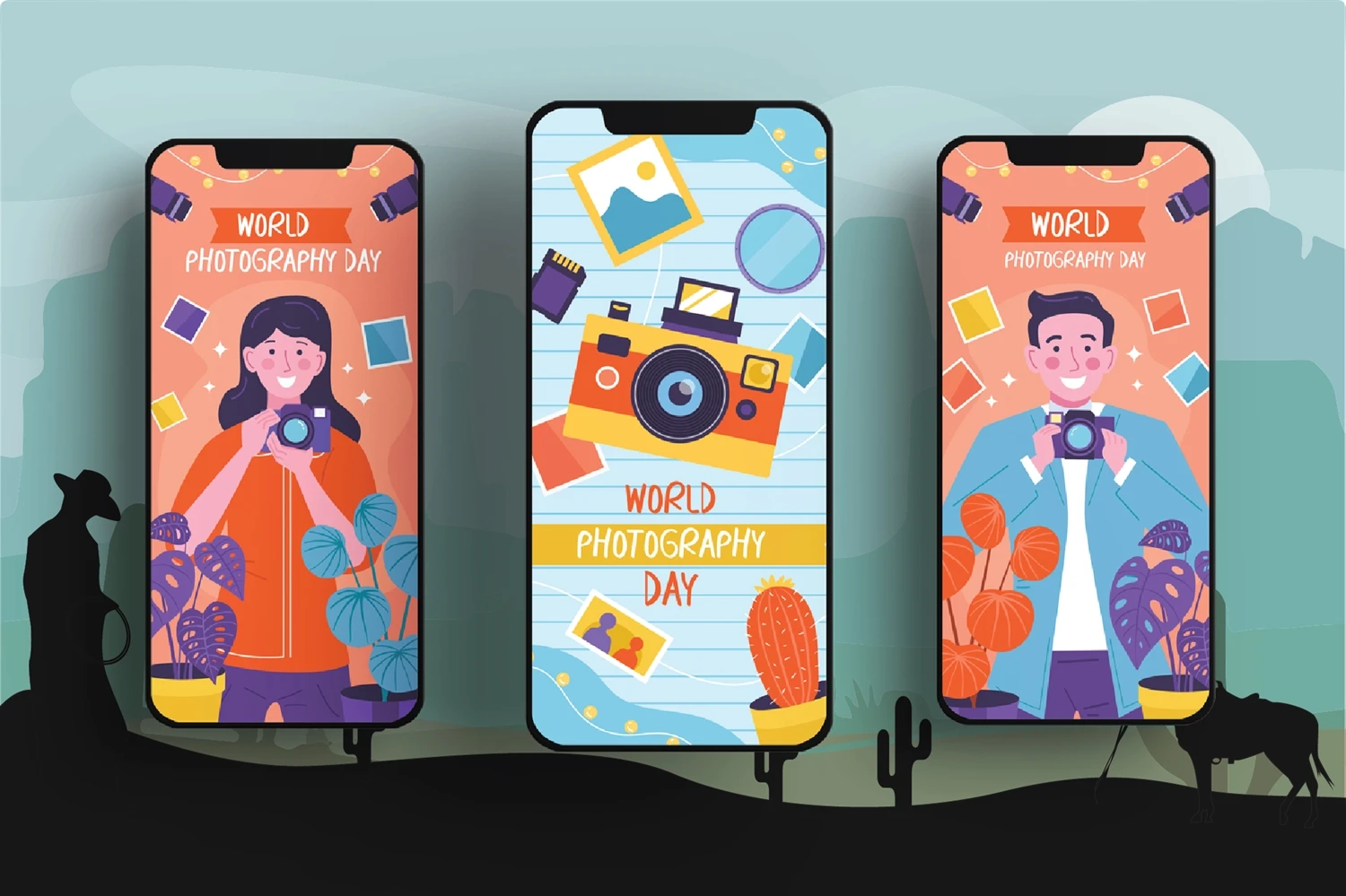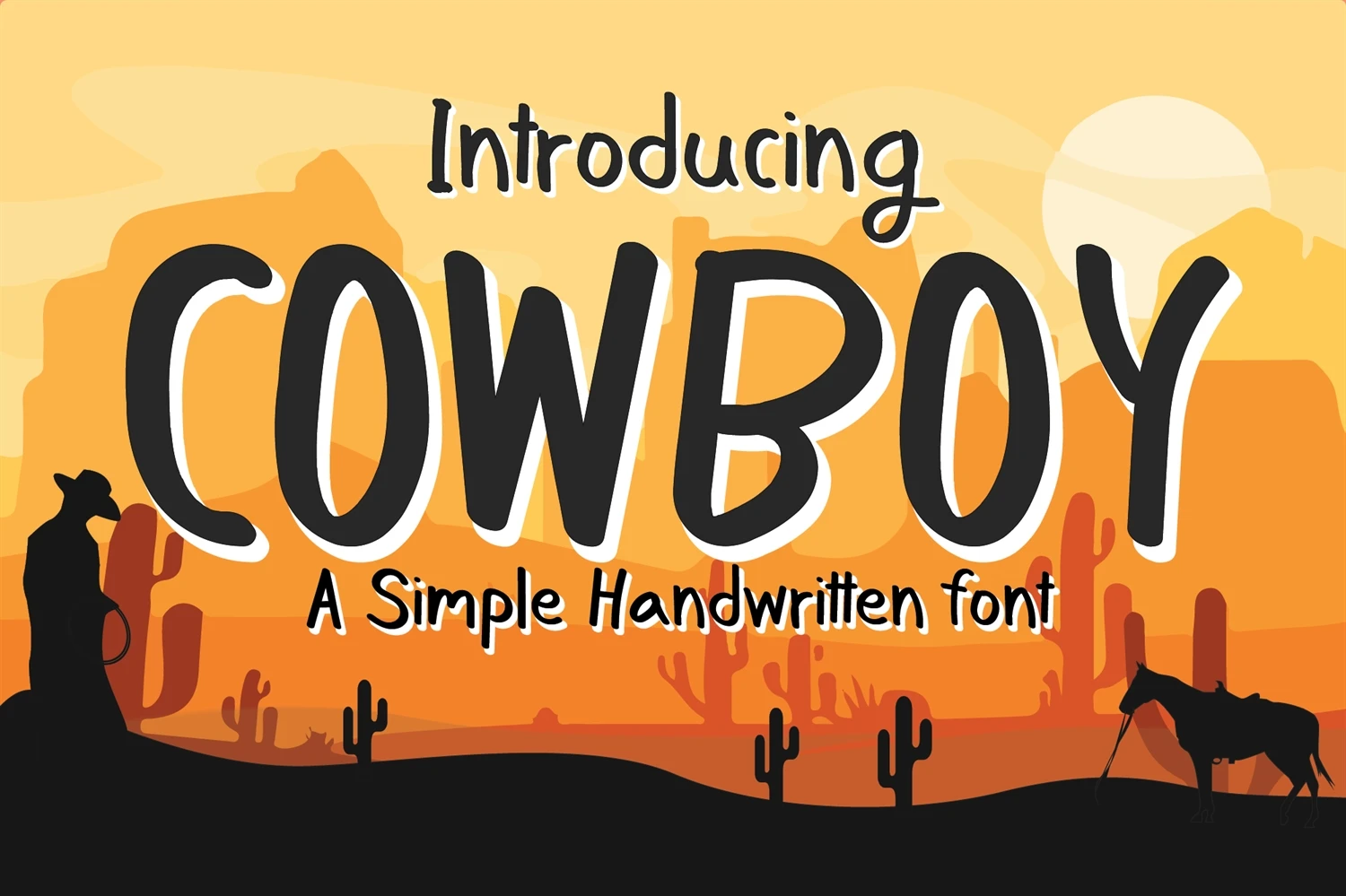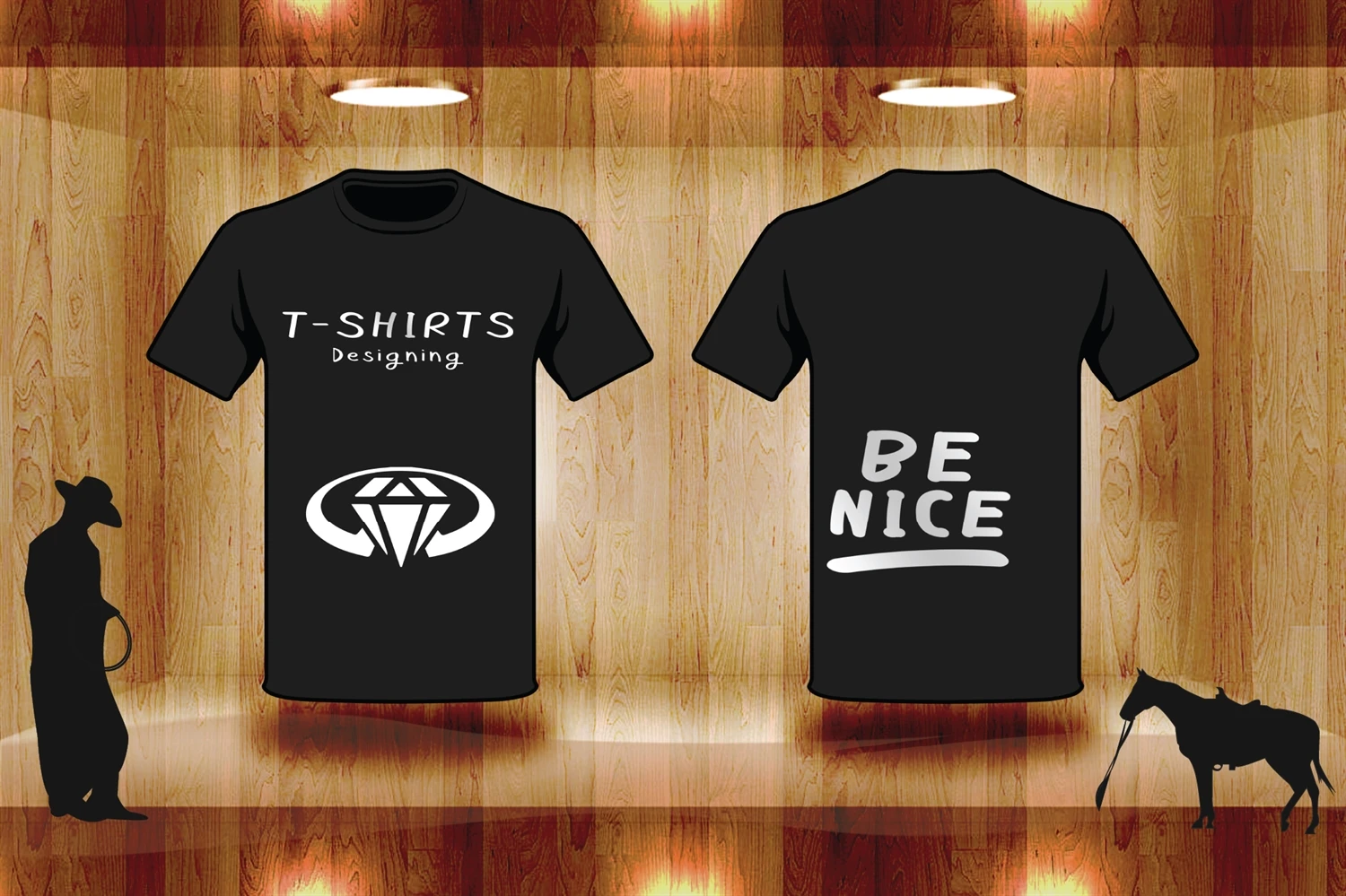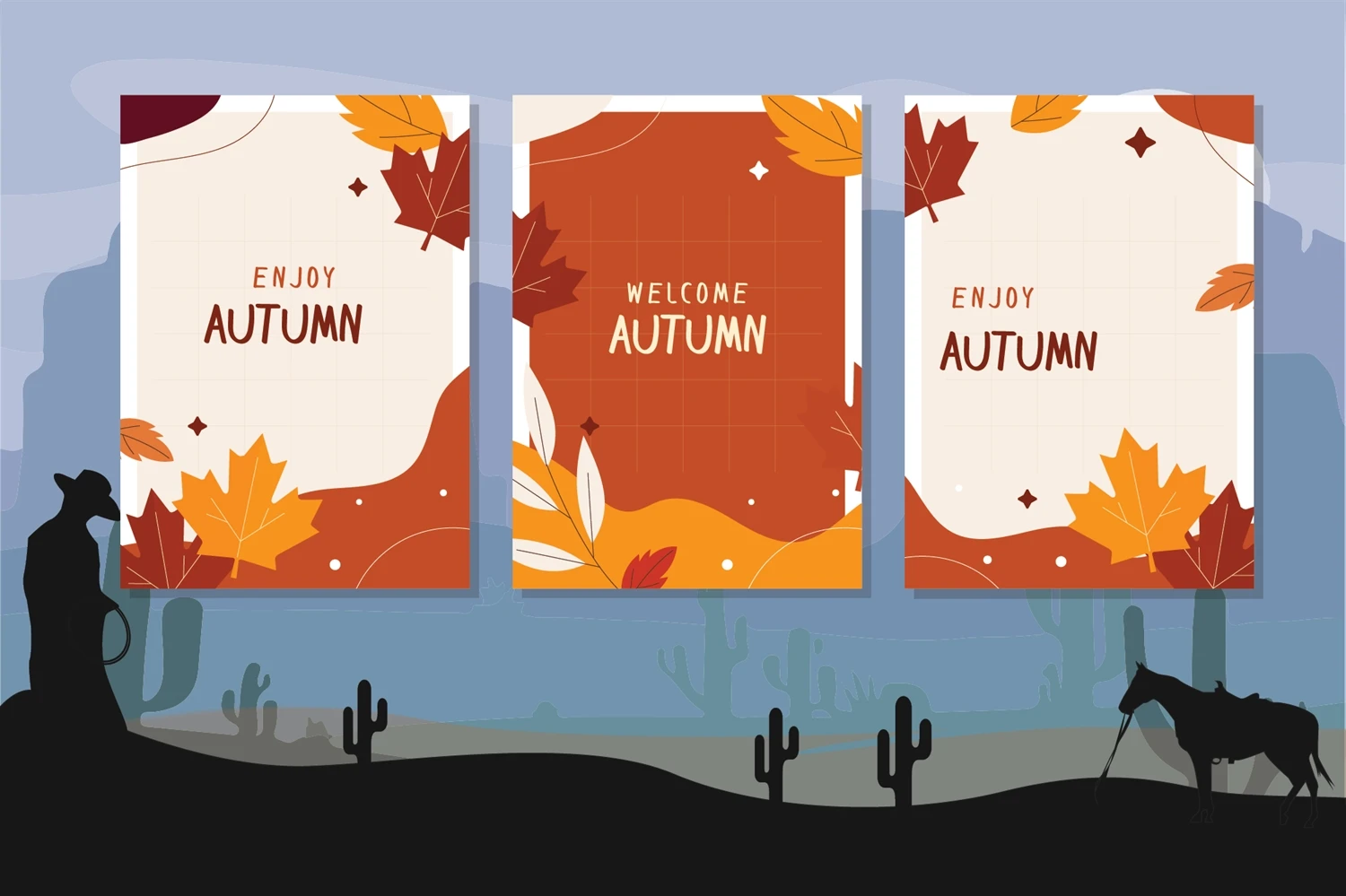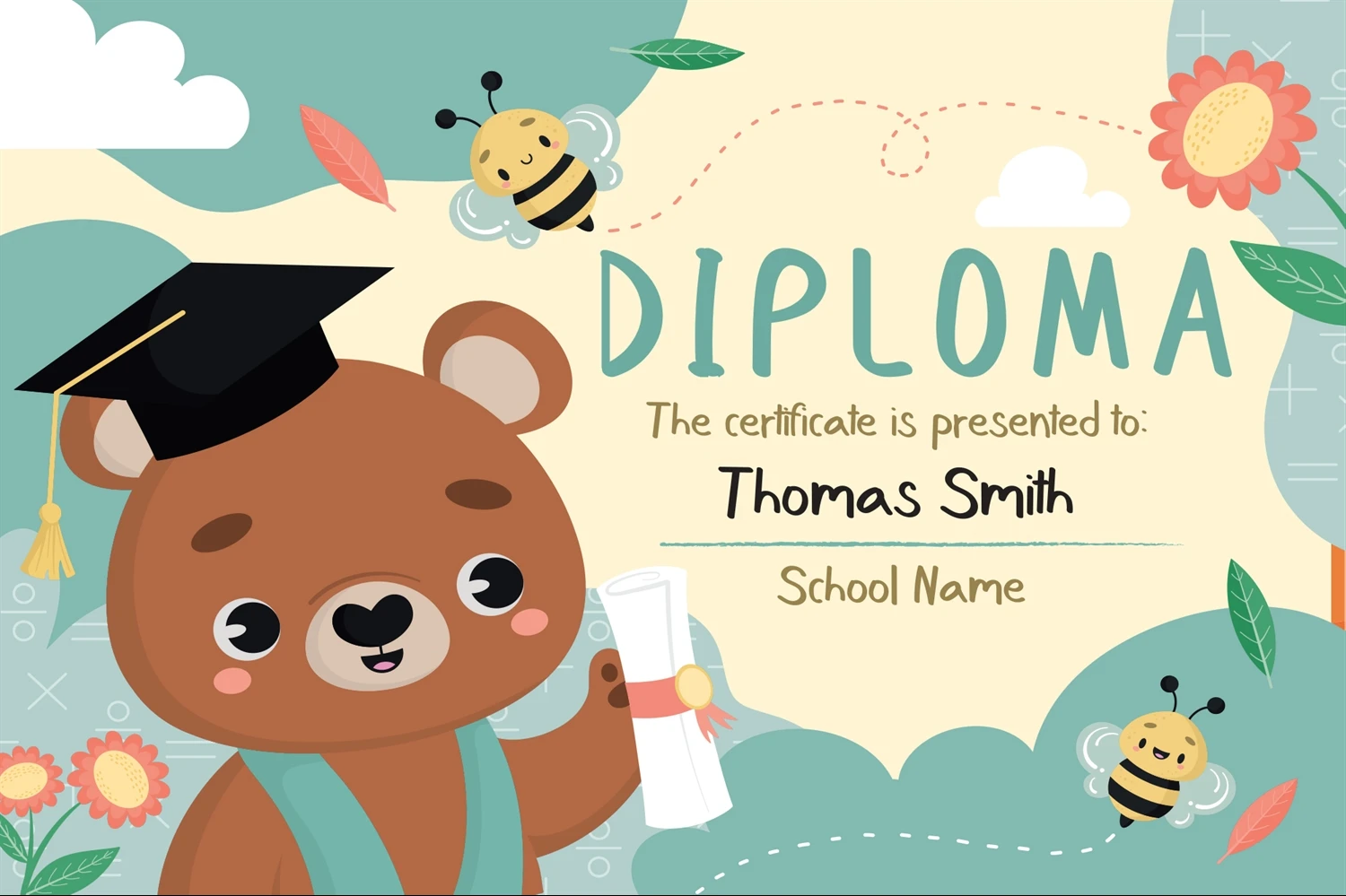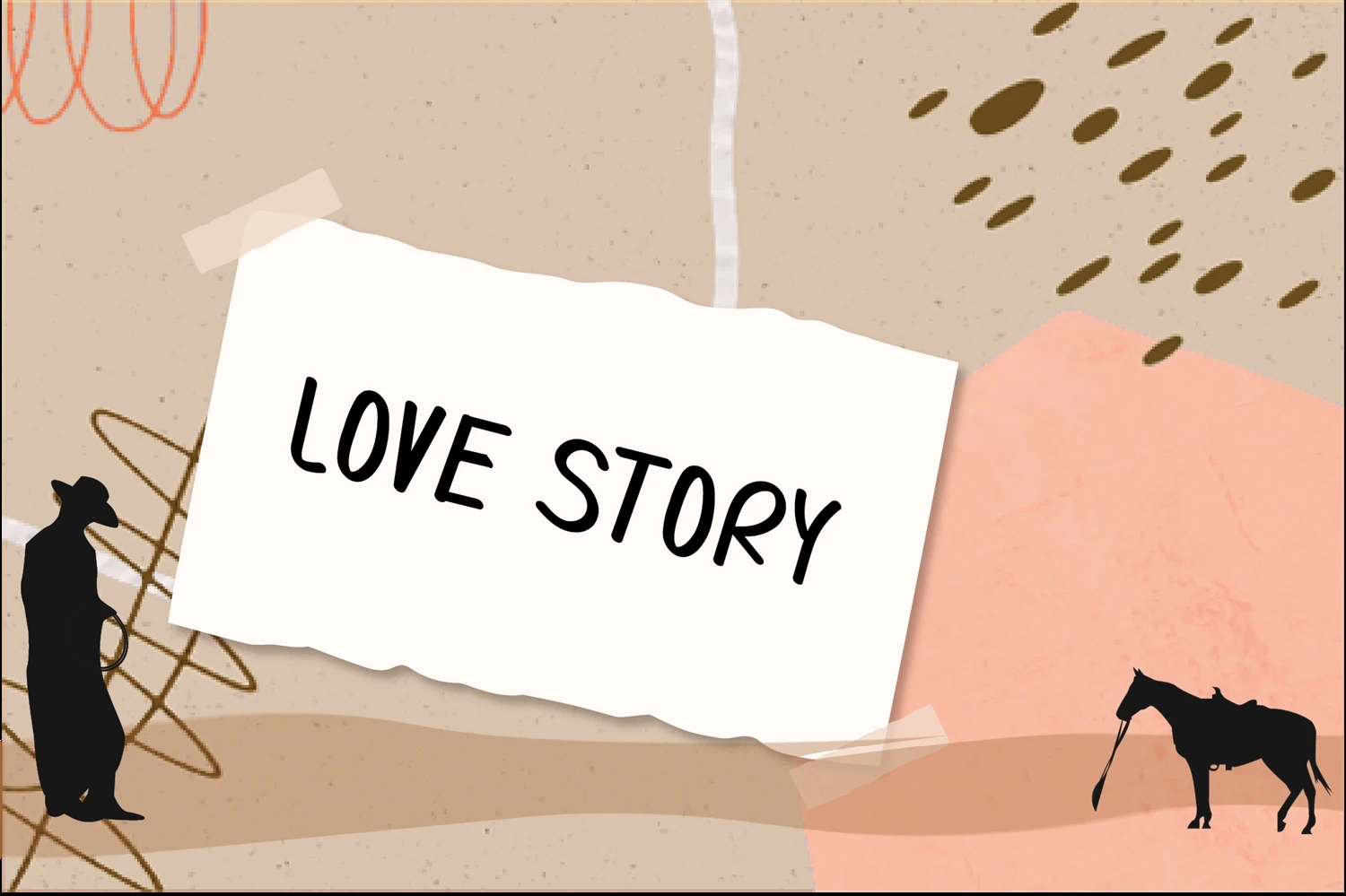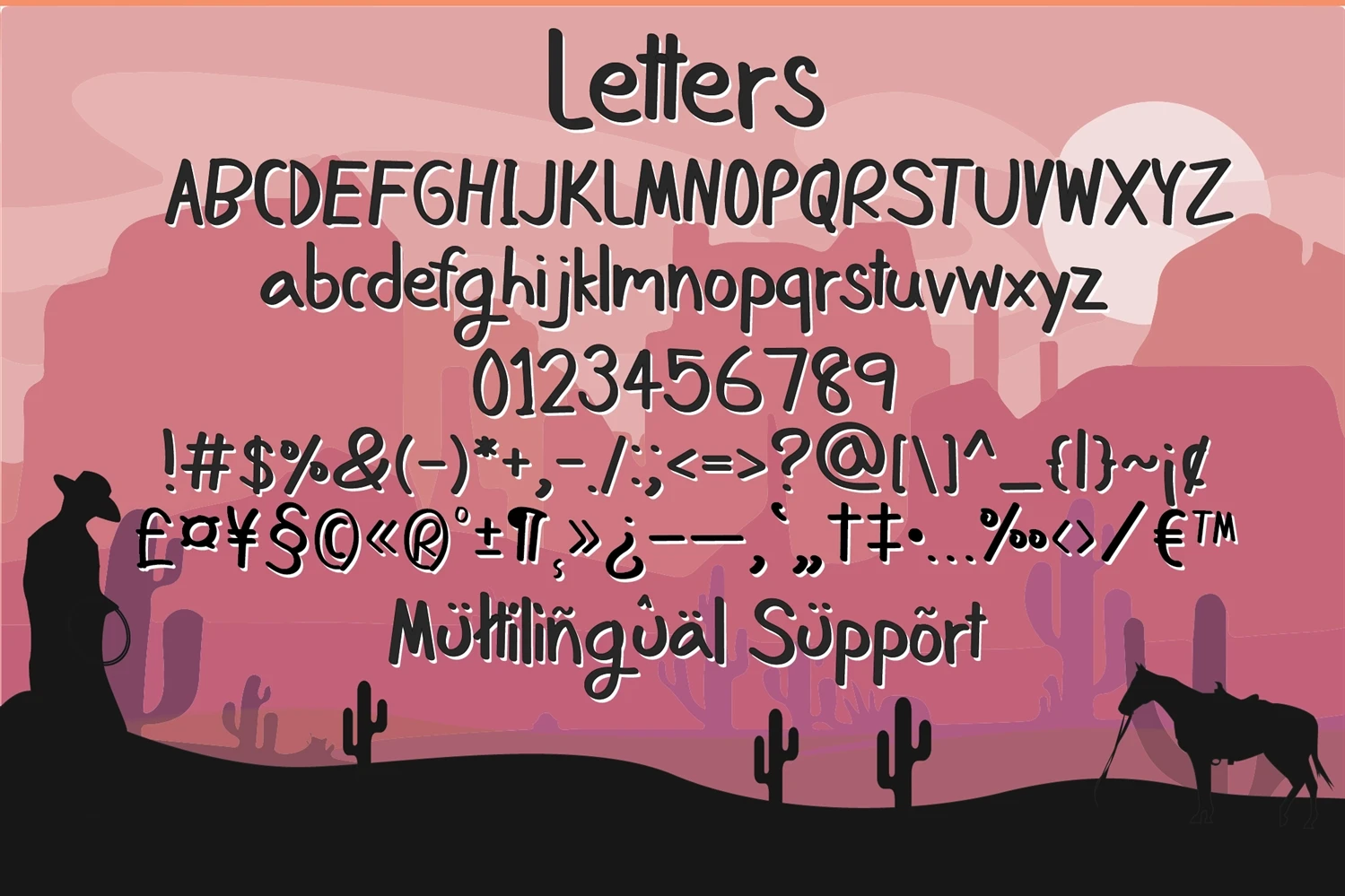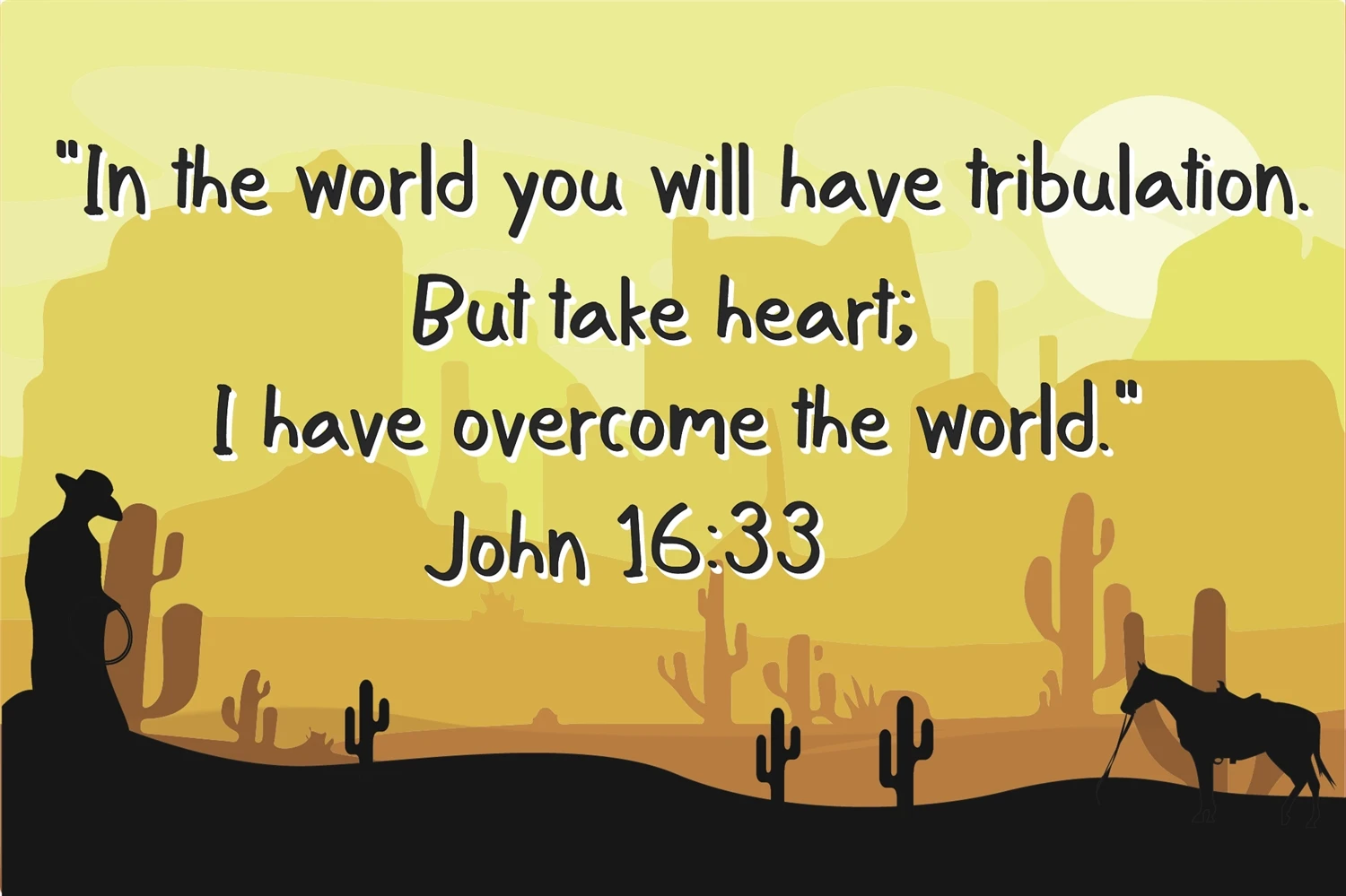
Cowboy is a beautiful and neat handwritten font, perfect for making your designs stand out from the crowd. Its characters are perfect for wall displays, wedding invitations, social media post logos, advertisements, product packaging, product designs, labels, photography, watermarks, invitations, stationery, and any project that requires modern typography.